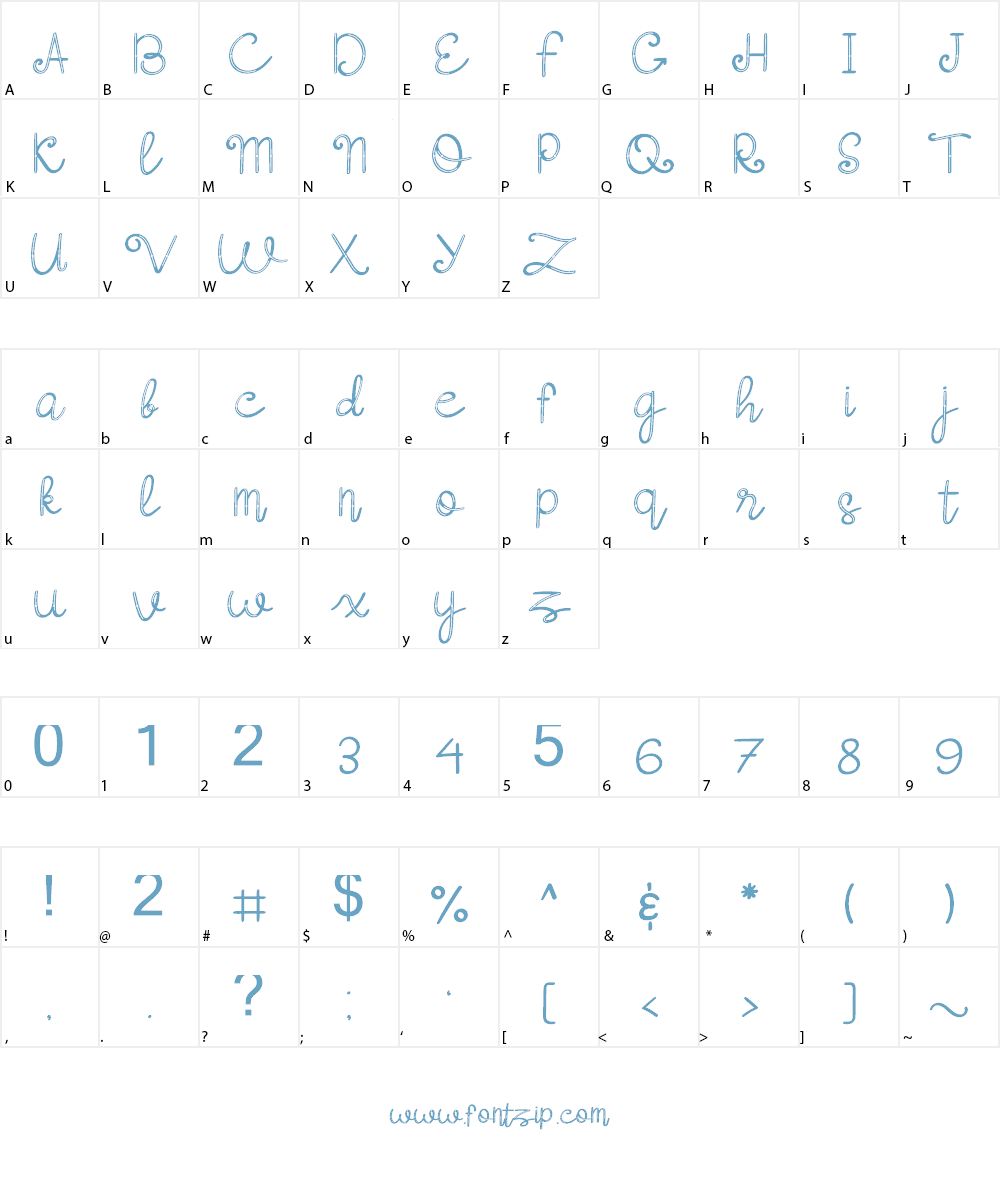
Let me introduce the Winter Spirit font - a cute script with two style regular and slash, that is perfect for wonderful wintertime newsletters, handmade cards, scrapbook page titles, postcards, personalized stationery and more!